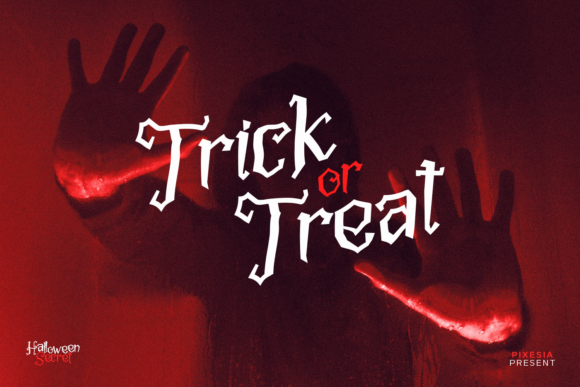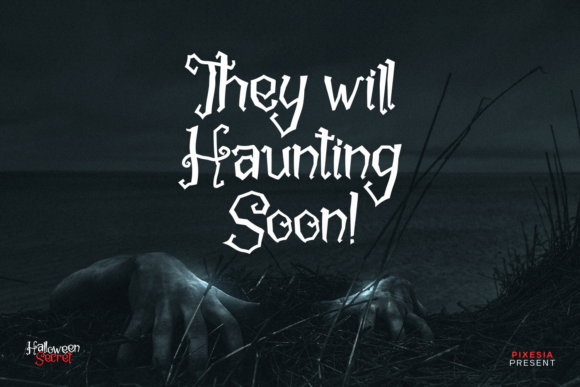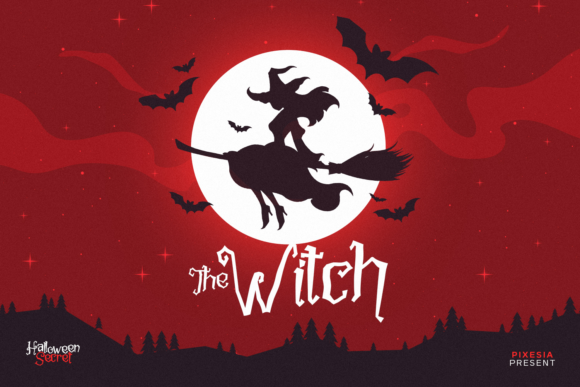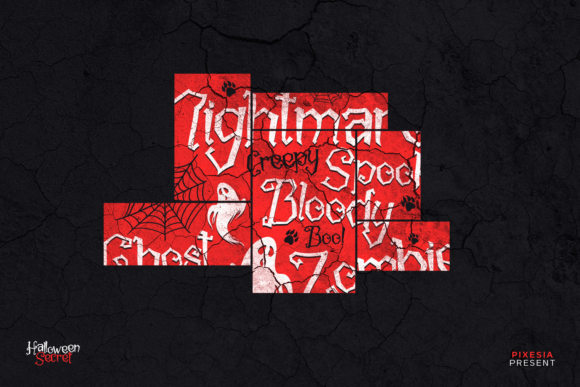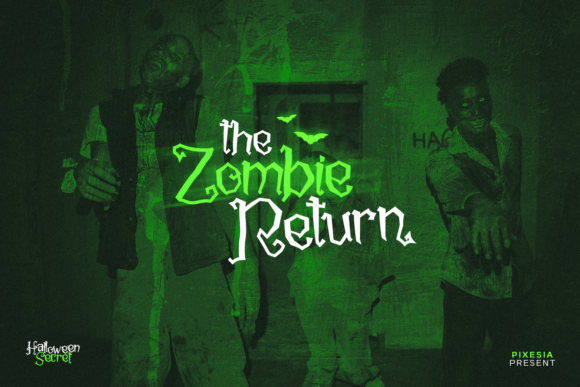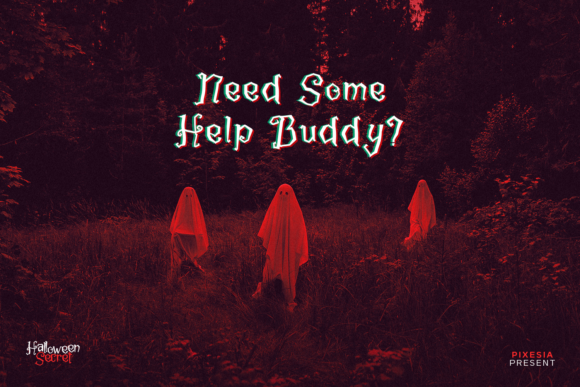
Unleash the Spookiness: Discover the Halloween Secret Font
As the spookiest time of the year approaches, designers and crafters are on the lookout for the perfect typography to add a touch of eeriness to their Halloween-related projects. Look no further! Introducing the Halloween Secret Font, a creepy and dark looking display font that’s sure to send shivers down the spines of your audience. In this article, we’ll dive into the world of Halloween Secret Font, exploring its features, uses, and tips on how to make the most of this hauntingly beautiful font.
What is Halloween Secret Font?
Halloween Secret Font is a specially designed display font that’s perfect for creating spooky and eye-catching titles, headings, and captions for your Halloween-themed projects. This font is not just a simple typeface, but a tool that can help you conjure up the eerie atmosphere and mystique of the spookiest night of the year. Its dark and creepy appearance is sure to grab attention and leave a lasting impression on your audience.
Features of Halloween Secret Font
- Creepy and Dark Design: The Halloween Secret Font boasts a unique and haunting design that’s sure to add a touch of spookiness to your projects.
- Display Font: This font is specifically designed as a display font, making it perfect for headlines, titles, and captions.
- Highly Versatile: Whether you’re working on a Halloween-themed party invitation, a spooky craft project, or a creepy graphic design, this font is sure to fit the bill.
Uses of Halloween Secret Font
The possibilities are endless when it comes to using the Halloween Secret Font. Here are a few ideas to get you started:
- Halloween Party Invitations: Create spooky and eye-catching invitations that set the tone for a hauntingly good time.
- Craft Projects: Add a touch of eeriness to your Halloween-themed craft projects, such as pumpkin carvings, ghostly decorations, or spooky centerpieces.
- Graphic Design: Use the Halloween Secret Font to create creepy and attention-grabbing graphics for social media, flyers, or posters.
- Web Design: Add a spooky touch to your website or blog with the Halloween Secret Font, perfect for Halloween-themed blog posts or promotions.
Tips for Using Halloween Secret Font
To make the most of the Halloween Secret Font, here are a few tips to keep in mind:
- Experiment with Colors: While the font itself is dark and creepy, you can experiment with different colors to add an extra layer of spookiness or to match your brand’s aesthetic.
- Mix and Match Fonts: Combine the Halloween Secret Font with other fonts to create a unique and eye-catching design.
- Play with Textures and Effects: Add an extra layer of depth to your design by experimenting with textures and effects, such as glow, shadow, or distressed effects.
| Font Name | Halloween Secret Font |
| Author | Pixesia Studio |
In conclusion, the Halloween Secret Font is a must-have for designers and crafters looking to add a touch of spookiness to their Halloween-related projects. With its creepy and dark design, versatility, and ease of use, this font is sure to be a hit this Halloween season. So, don’t be afraid to get creative and unleash the spookiness – the only limit is your imagination!